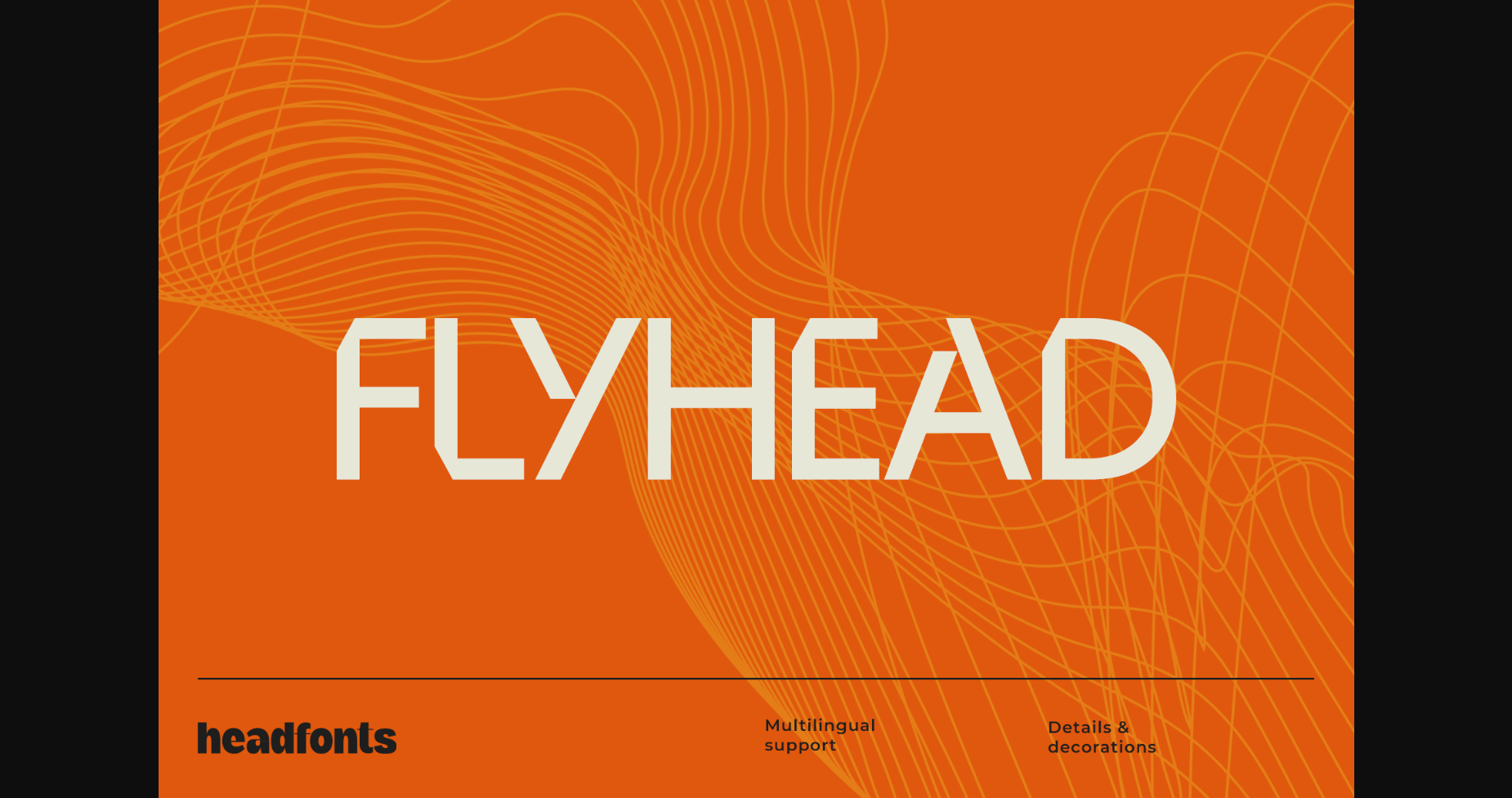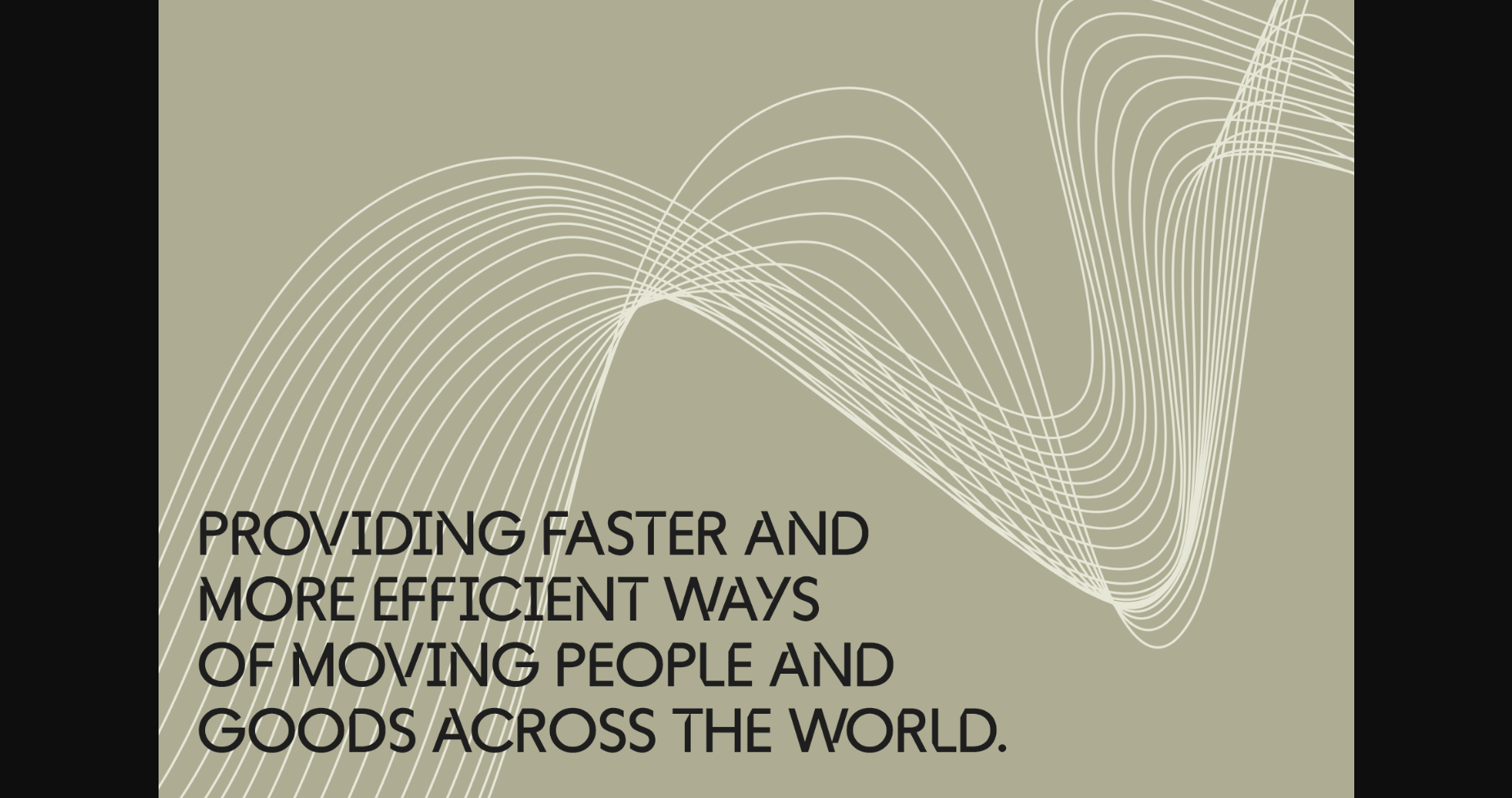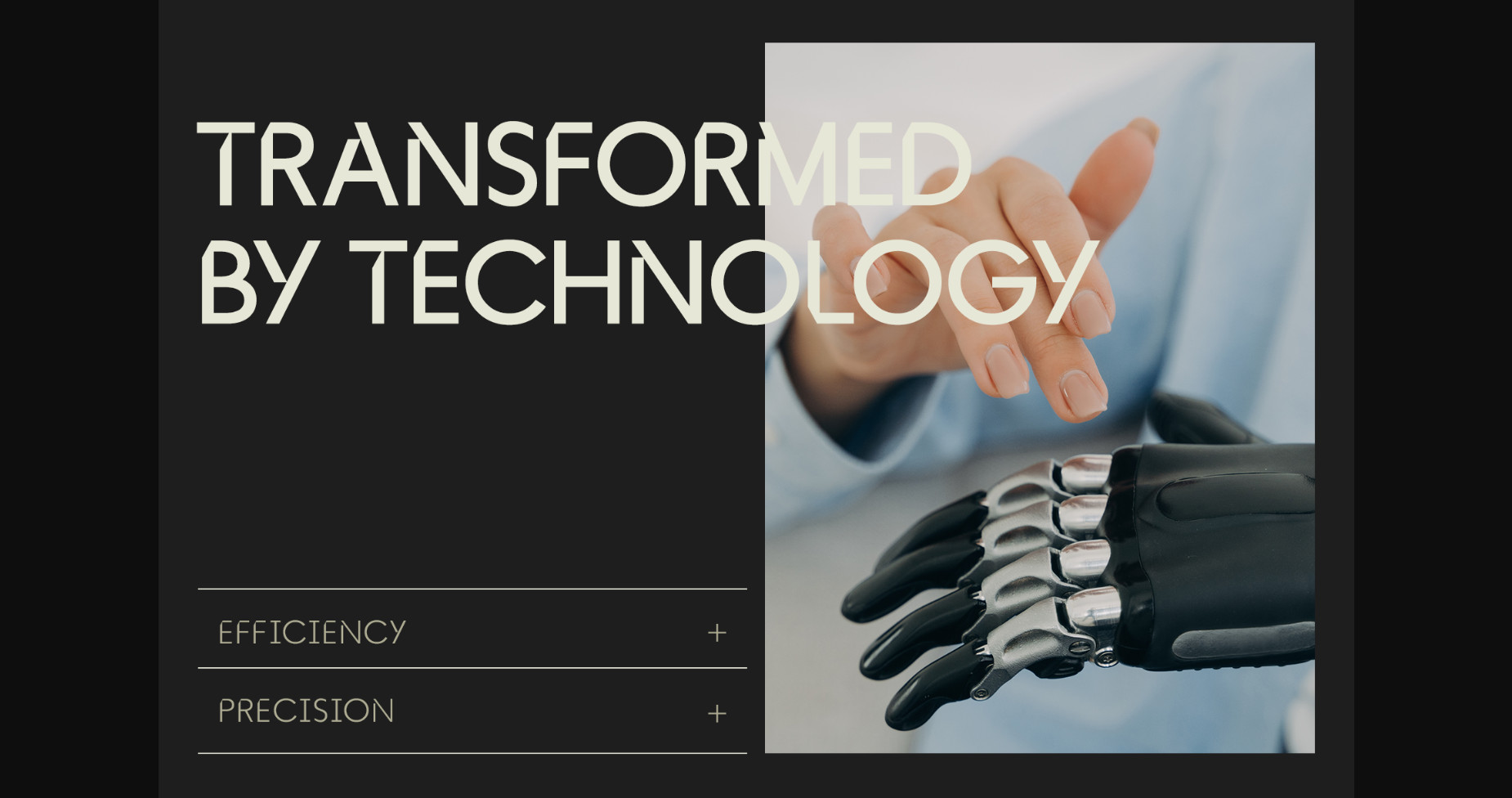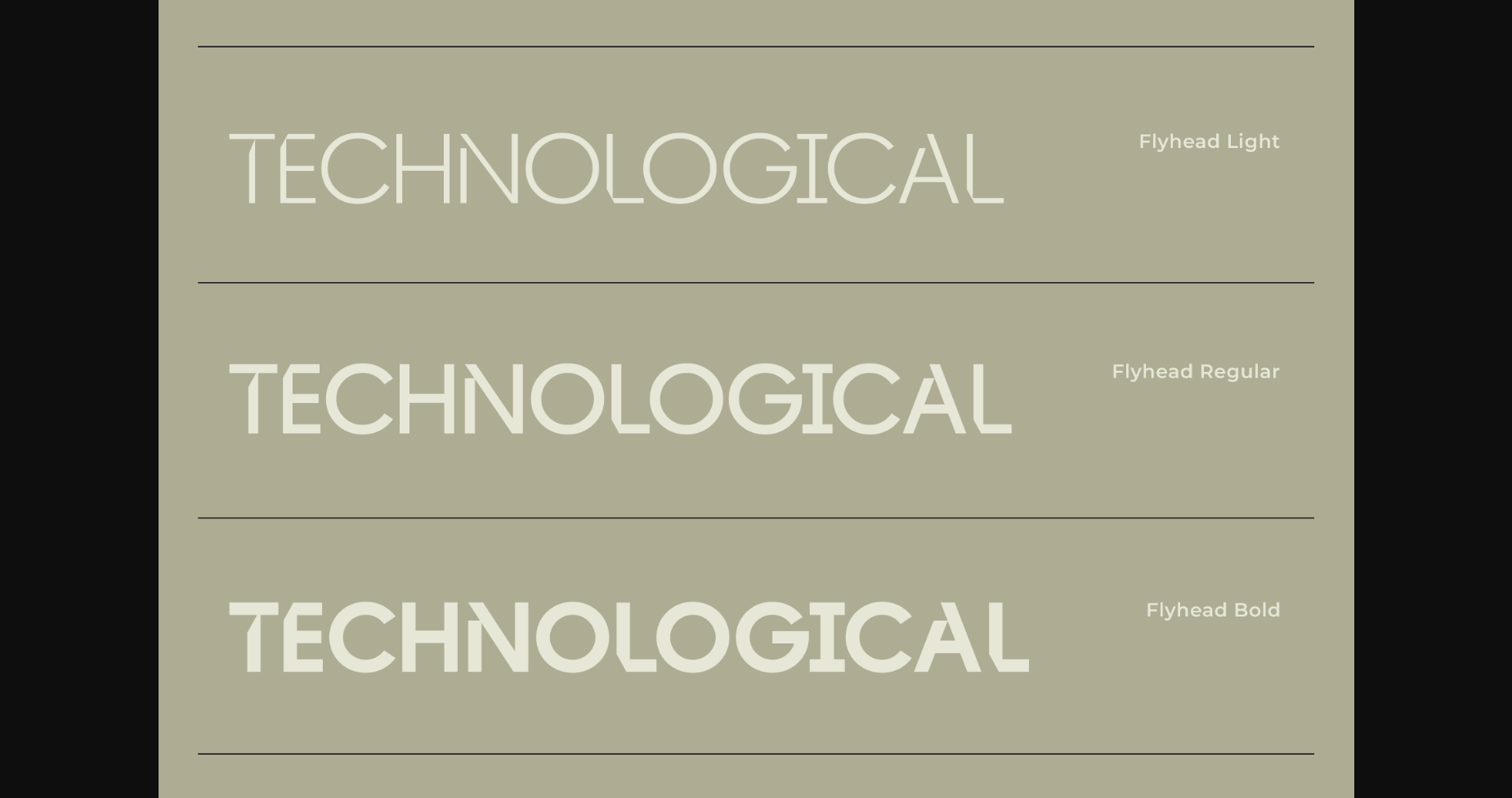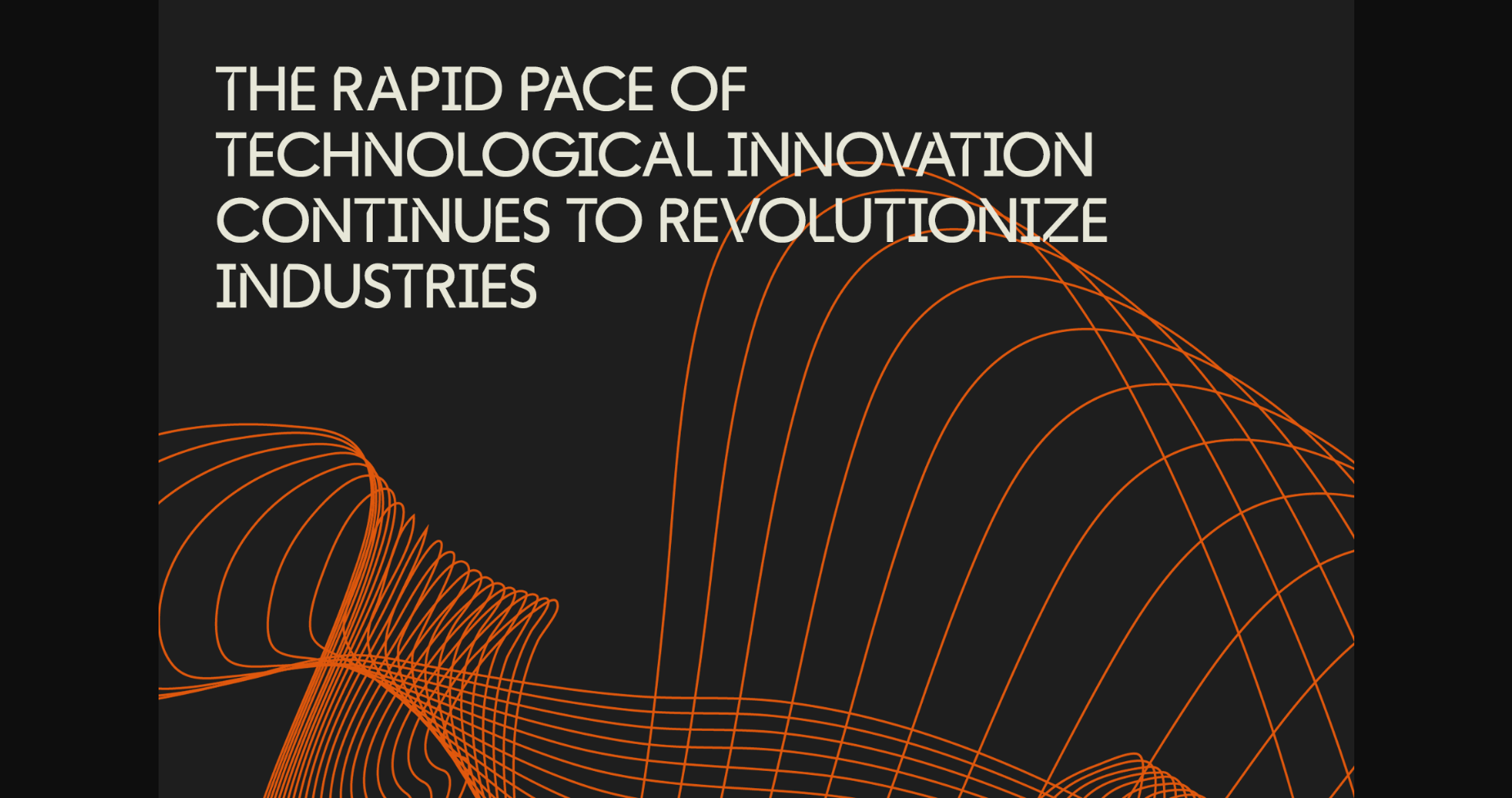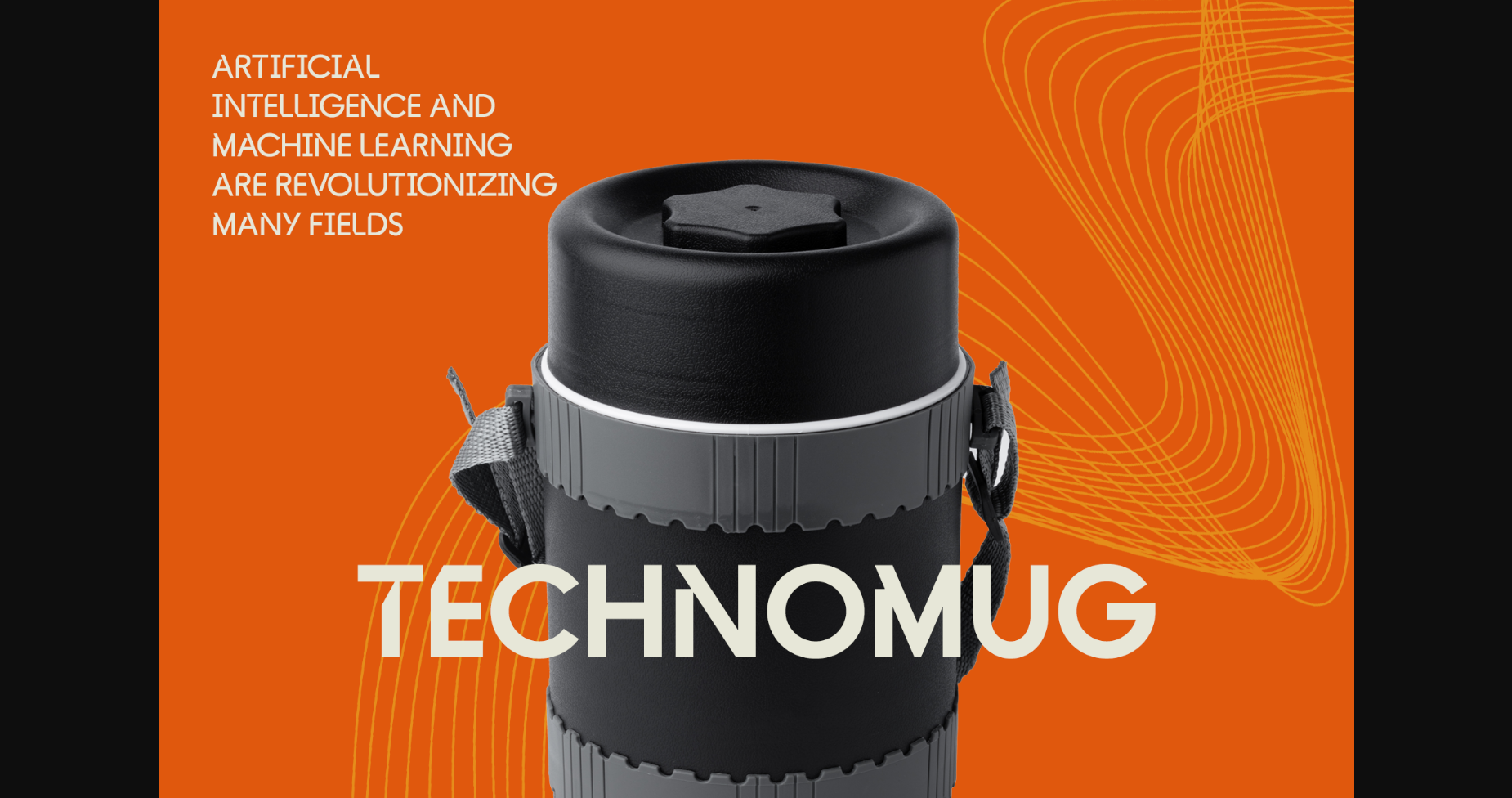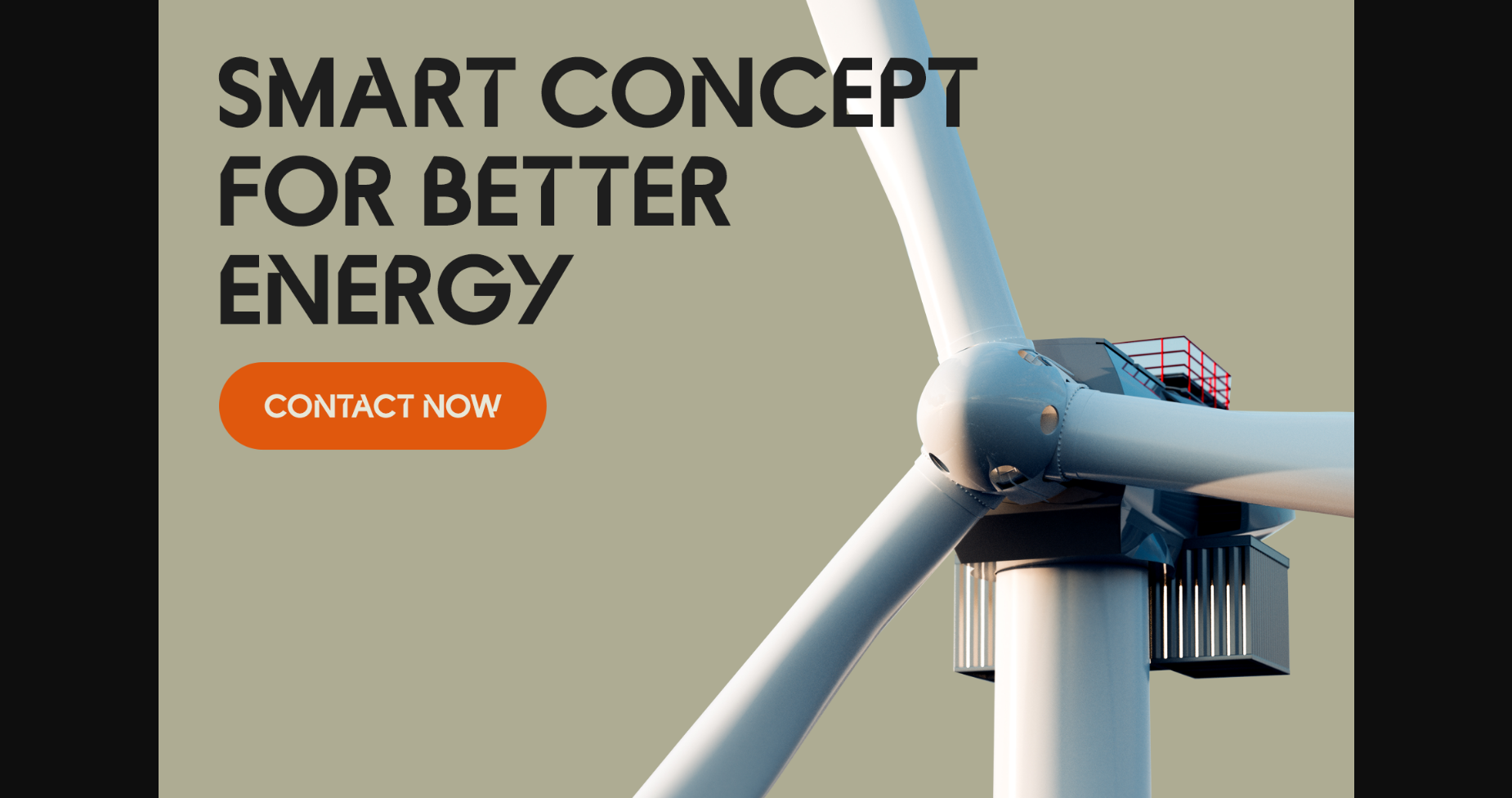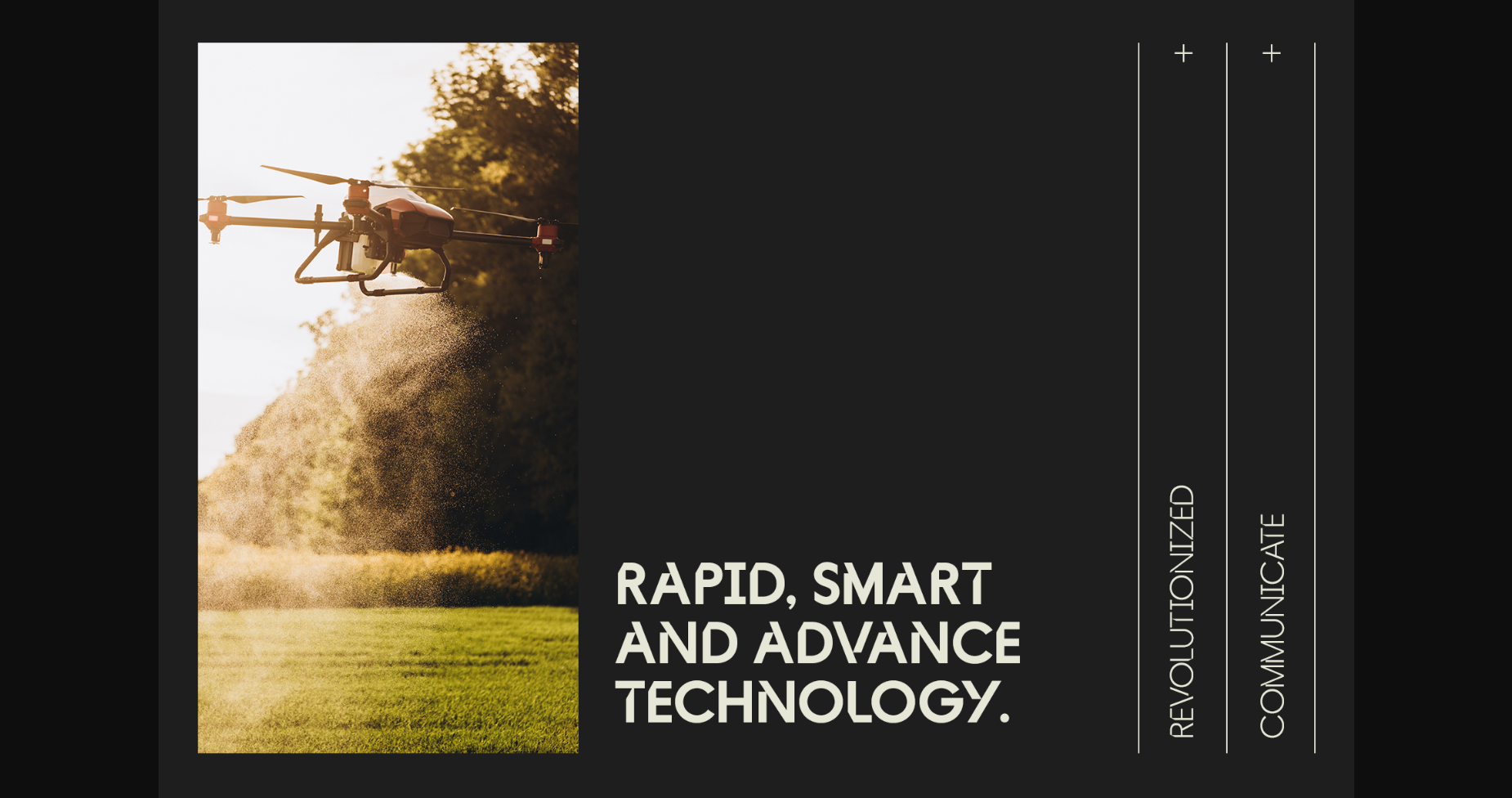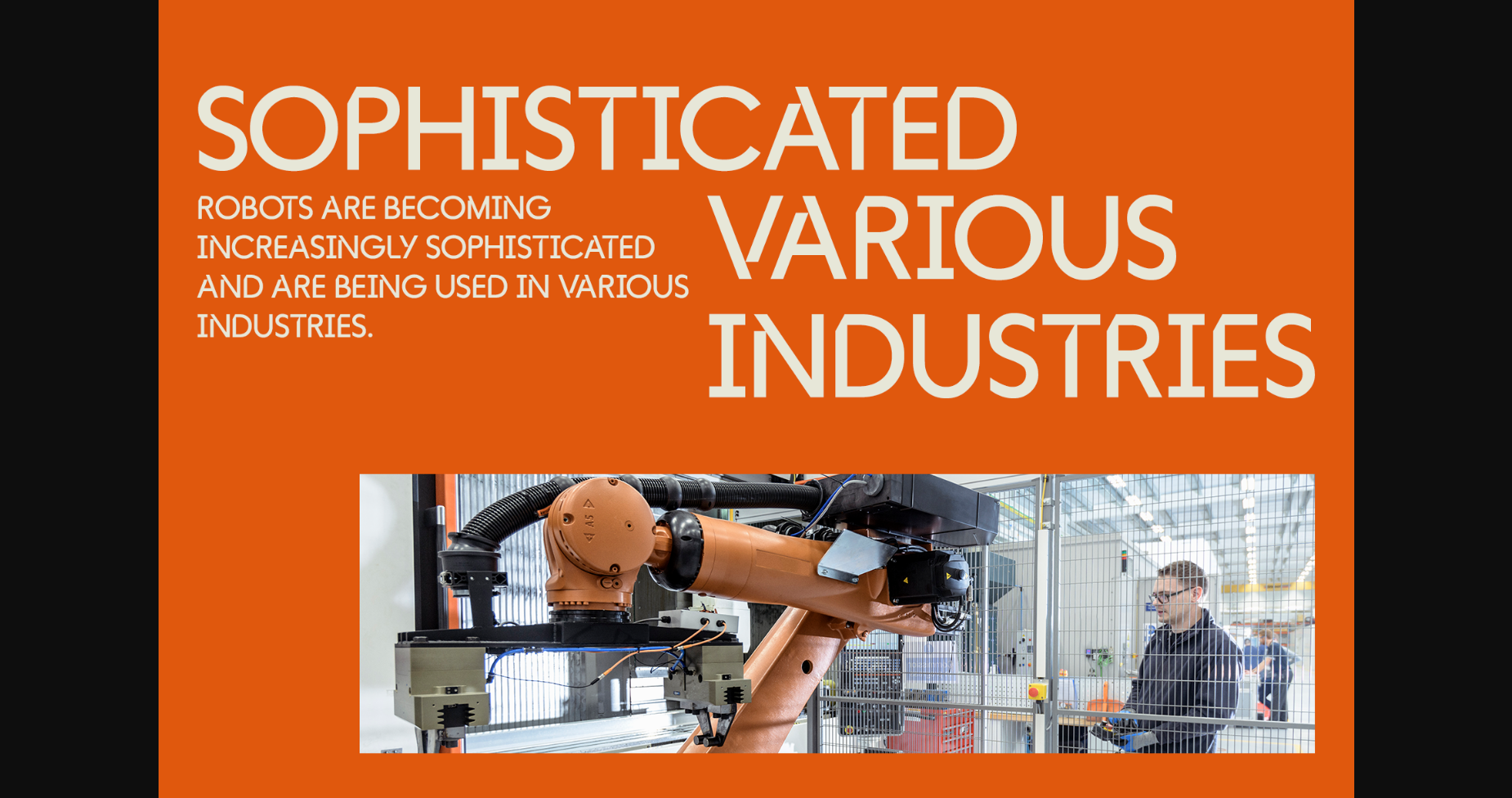
Flyhead Font
About Flyhead Font
Introducing Flyhead, the ultimate font for modern and innovative designs. This geometric typeface is designed with precision, featuring clean cuts and highly legible glyphs.
The carefully designed glyphs ensure excellent readability, allowing your message to shine through with clarity and professionalism.
Flyhead is a font that embodies the spirit of innovation and progress. It is the ideal font for a wide range of industries, including technology, agriculture, energy, and medicine. Its clean lines, precise cuts, and modern aesthetic perfectly suit the innovative and forward-thinking nature of these industries. Whether you’re designing a website for a technology startup, a brochure for a renewable energy company, or a medical magazine front page, Flyhead is the font that will take your designs to the next level. Its versatility makes it suitable for headlines, titles, and body text.